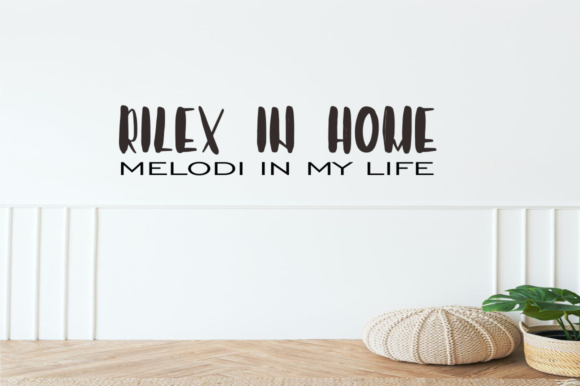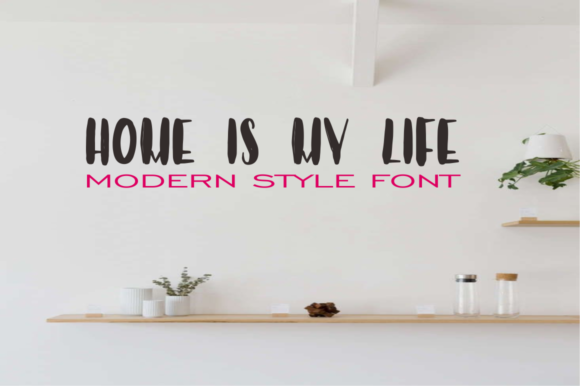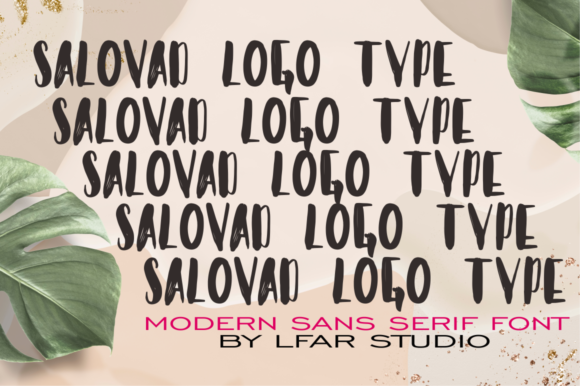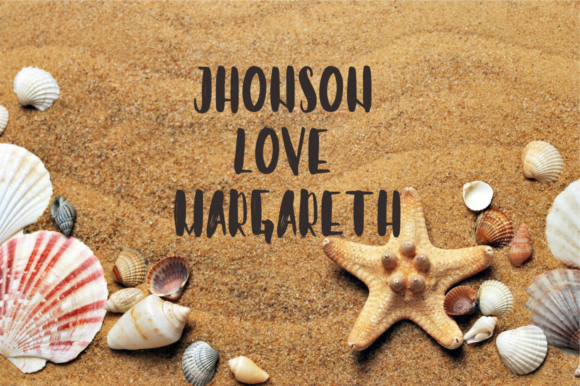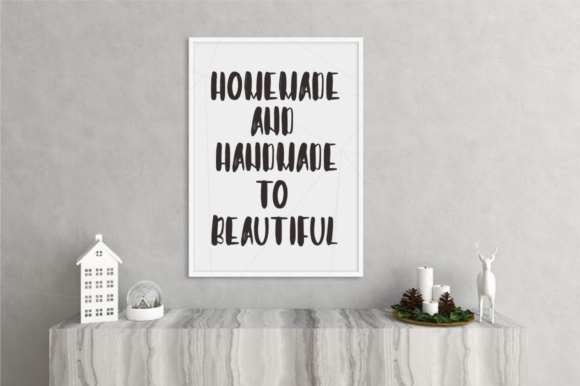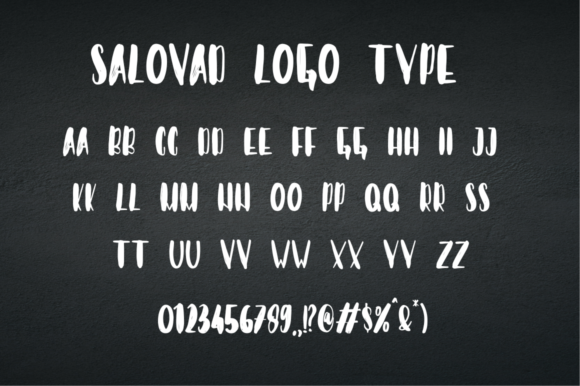
Introduction to Salovad Font
Have you ever stared at a blank page, trying to come up with the perfect font to match your creative project’s vibe? It’s a moment we’ve all been in, and it’s what makes discovering a new design resource so thrilling. Imagine finally finding the perfect font to elevate your digital designing, presentations, or even greeting cards – it’s a game-changer!
Meet the Salovad Font, a cool and trendy display font that’s sure to bring your creative projects to life. With its unique style and versatility, this font is perfect for designers looking to add a touch of sophistication to their work. Whether you’re working on a high-quality design project or just want to add some flair to your social media posts, the Salovad Font is an excellent choice.
Key Features of Salovad Font
- High-quality, professional design suitable for various creative projects, including graphic design, digital art, and typography.
- Transparent background, allowing for seamless integration with various backgrounds and designs.
- Unique, stylish design that sets it apart from other fonts, making it an excellent choice for designers seeking a distinctive look.
Honest Review: Salovad Font
I recently had the chance to work with the Salovad Font for a creative project, and I must say it’s been a game-changer. The level of detail and sophistication in this font is truly impressive.
What works well: ✨ The Salovad Font is incredibly versatile, making it perfect for a wide range of design applications. I particularly love how it can be easily customized to fit any style or tone. The free download option is also a major plus, as it’s a fantastic resource for designers on a budget.
- Perfect for various design applications
However, I did encounter a few limitations while working with the Salovad Font: ⚠️ The font’s complexity can make it challenging to use in certain situations, and the lack of additional character sets can be restrictive for some projects.
Overall, I’m thoroughly impressed with the Salovad Font. Its high quality, versatility, and affordability make it a top-notch design resource. If you’re looking for a reliable font for your next creative project, I highly recommend giving it a try.
Tips for Getting the Most Out of Salovad Font
To get the most out of Salovad Font, experiment with different font sizes, colors, and styles to create visually appealing designs. Use the transparent background feature to create graphics that stand out from the rest.
The Salovad Font is commonly used in a variety of creative projects, including graphic design, digital art, and print design. Its unique design and high quality make it an ideal choice for designers looking to add a touch of sophistication to their work.
Can I use the Salovad Font with a transparent background?
Yes, the Salovad Font has a transparent background, making it perfect for use with images or videos that have a transparent or gradient background. You can use it in designs where you want the font to stand out against a complex background, such as in logos, icons, or graphics.